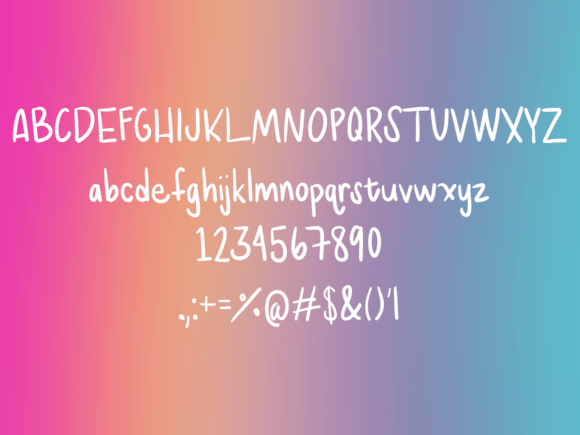
Bored at Work Font: The Perfect Addition to Your Crafty Ideas
Are you tired of using the same old fonts in your designs? Do you want to add a touch of personality and whimsy to your crafty projects? Look no further than the Bored at Work font! This fun and casual handwritten font is sure to bring a smile to your face and take your designs to the next level.
What is Bored at Work Font?
Bored at Work font is a unique and quirky handwritten font that is perfect for adding a personal touch to your designs. With its casual and relaxed vibe, this font is ideal for crafty projects, DIY tutorials, and even social media graphics. The font is designed to look like it was written with a pen or pencil, giving it a charming and imperfect feel that is sure to resonate with crafty enthusiasts.
Features of Bored at Work Font
So, what makes Bored at Work font so special? Here are just a few of its key features:
- Handwritten style: Bored at Work font has a distinctly handwritten feel that is perfect for adding a personal touch to your designs.
- Casual and relaxed: This font has a laid-back vibe that is perfect for crafty projects, DIY tutorials, and social media graphics.
- Unique and quirky: Bored at Work font is sure to stand out from the crowd with its quirky and offbeat style.
- Easy to read: Despite its casual feel, Bored at Work font is still easy to read, making it perfect for use in a variety of designs.
Uses for Bored at Work Font
So, what can you use Bored at Work font for? The possibilities are endless! Here are a few ideas to get you started:
- Crafty projects: Bored at Work font is perfect for use in crafty projects like scrapbooking, card making, and journaling.
- DIY tutorials: Add a personal touch to your DIY tutorials with Bored at Work font.
- Social media graphics: Use Bored at Work font to add a touch of personality to your social media graphics.
- Stationery and invitations: Bored at Work font is perfect for use in stationery and invitations, adding a touch of whimsy and personality to your designs.
Tips for Using Bored at Work Font
Here are a few tips for using Bored at Work font in your designs:
- Keep it simple: Bored at Work font is best used in simple designs where its quirky style can shine.
- Experiment with colors: Try pairing Bored at Work font with bright and bold colors to really make your design pop.
- Mix and match: Don’t be afraid to mix and match Bored at Work font with other fonts and design elements to create a unique look.
In conclusion, Bored at Work font is a fun and casual handwritten font that is perfect for adding a personal touch to your crafty projects. With its quirky and offbeat style, this font is sure to bring a smile to your face and take your designs to the next level. So why not give it a try and see what amazing creations you can come up with?
Bored at Work font is a unique and quirky addition to any design project. Its handwritten style and casual vibe make it perfect for crafty projects, DIY tutorials, and social media graphics. With its ease of use and versatility, Bored at Work font is sure to become a favorite among designers and crafty enthusiasts alike. So why wait? Download Bored at Work font today and start creating!